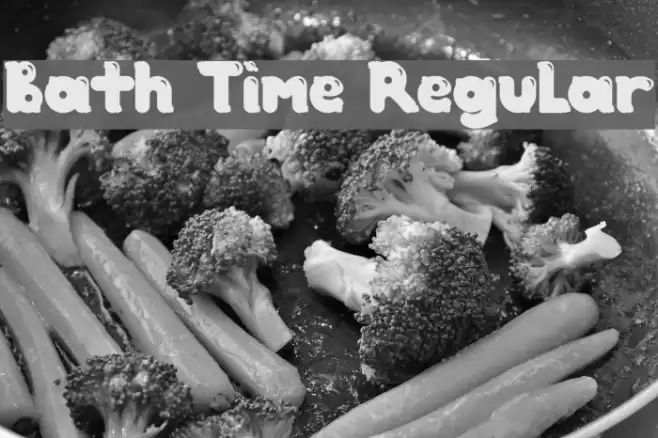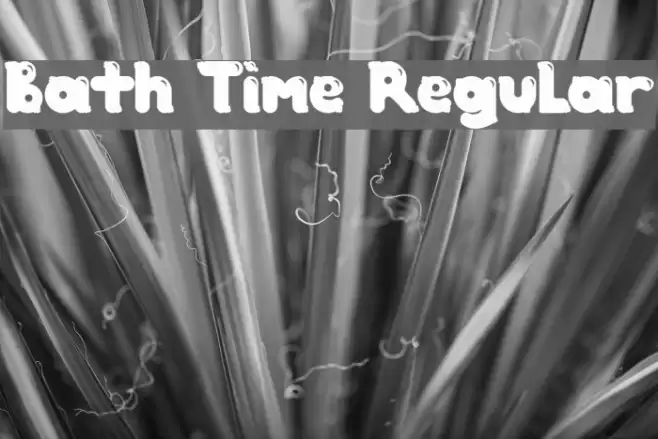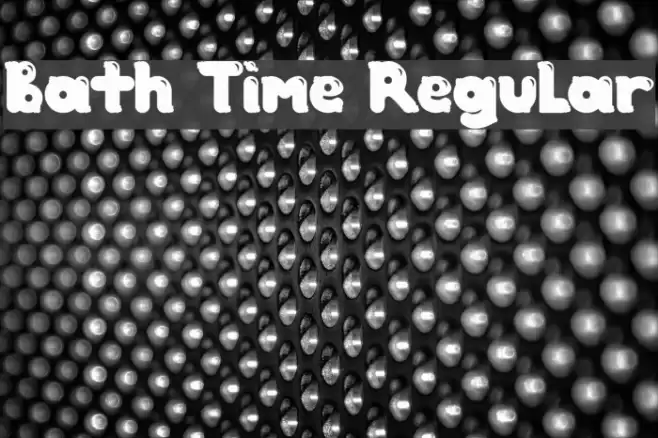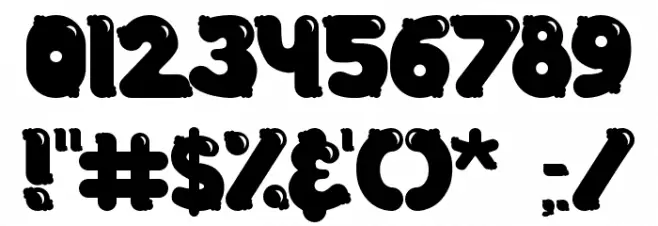
Bath Time Regular Font
Bath Time Regular Description
This playful and bold font features rounded, bubbly characters that evoke a sense of fun and whimsy. The letters are thick and have a soft, almost inflated appearance, making them stand out with a friendly and approachable vibe. The font maintains a consistent thickness throughout, with minimal contrast in stroke width, contributing to its cohesive and solid look. Its unique style is reminiscent of childhood and playful themes, making it ideal for projects that aim to capture a lighthearted and cheerful tone. The characters are evenly spaced, ensuring readability while maintaining its distinctive style.
A playful, bold font with rounded, bubbly characters and a whimsical style from bubble letter fonts.
- Proposed Projects: Ideal for children's books, playful branding, party invitations, and any project needing a fun, approachable aesthetic.
- Overall Style: Playful, Whimsical